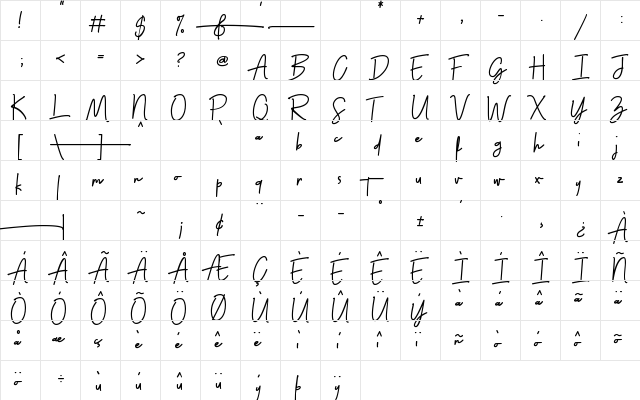
Thunderlightning Script Persona Regular Font Preview
Design Context for Thunderlightning Script Persona Typeface
Thunderlightning Script Persona flows with the natural rhythm of handwritten lettering, making it ideal for designs that call for warmth and personal expression. Its slender proportions lend an understated elegance to any composition.
Font Pairing: Combine Thunderlightning Script Persona with a simple geometric sans for maximum contrast — the tension between flowing curves and clean structure is a classic typographic pairing.
Pro Tip: Pair Thunderlightning Script Persona with a clean sans-serif for supporting text. The contrast between fluid script and geometric structure creates an elegant typographic hierarchy.